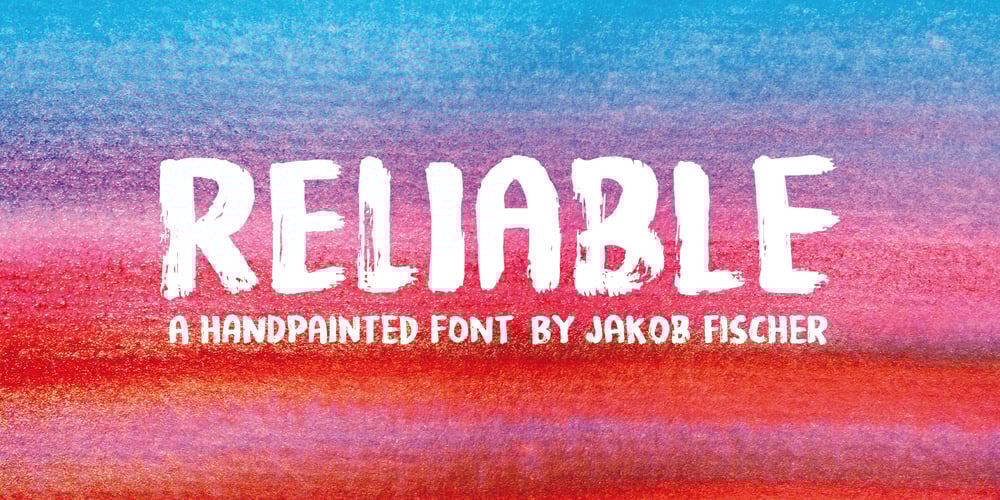
Reliable Font Family was designed by Jakob Fischer and published by PizzaDude.dk. Reliable contains 1 styles and family package options. Reliable was drawn with a somewhat dry brush, and then carefully made into a font. Reliable differs from other brush fonts, because it has got 8 different versions of each letter!!! 8 different letters that cycle while you type! Not really random, but enough to make it look very random! And, of course Reliable has got a full load of diacritics So, the conclusion must be: if you need a cool brush font, use Reliable!